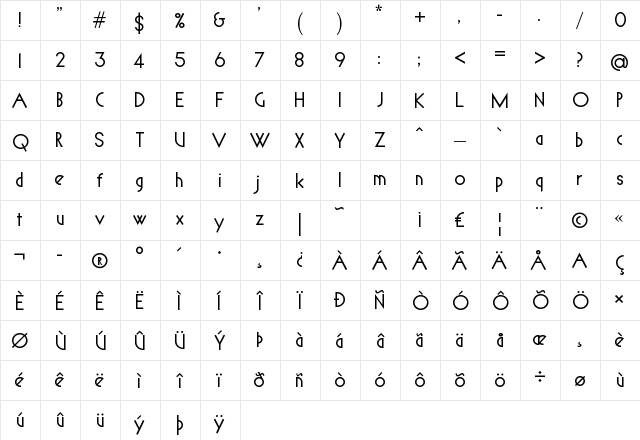
Spyrogeometric Regular
Design Context for Spyrogeometric Typeface
Spyrogeometric takes a measured approach to typography — its balanced proportions and neutral character make it a reliable workhorse for both digital and print work.